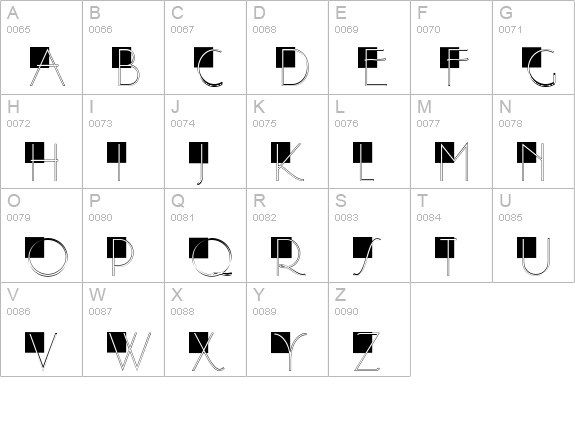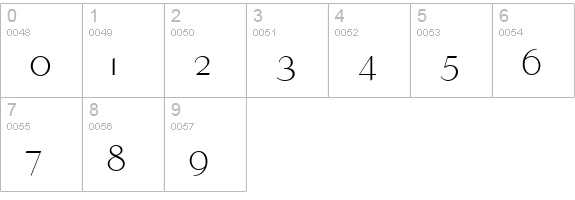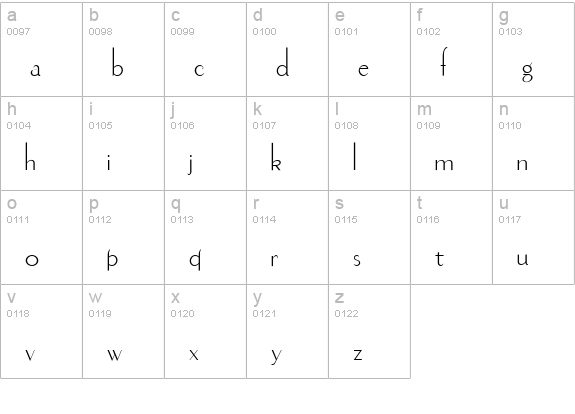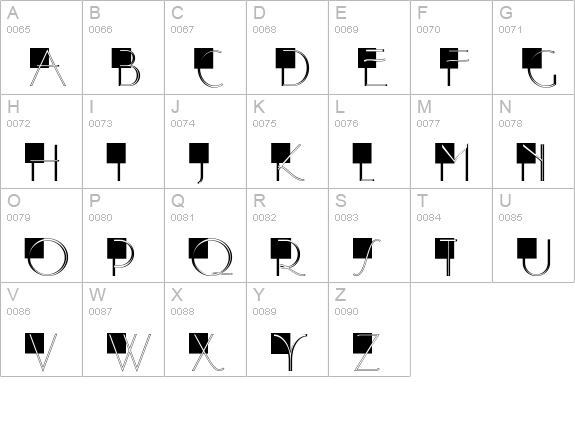
WashingtonSquareNF Font Details
WashingtonSquareNF is a striking and versatile font that exudes a timeless elegance. Its bold and well-defined letterforms command attention, making it perfect for headlines, logos, and signage. The clean lines and sharp angles give this font a modern edge while still maintaining a classic appeal. What sets WashingtonSquareNF apart is not only its exceptional design but also the fact that it is available for free. Yes, you read that right – this remarkable font can be downloaded for free at FontsMarket.com. This means that you can effortlessly enhance your creative projects without breaking the bank. Whether you're a graphic designer looking to add a touch of sophistication to your work, a business owner aiming to create a memorable brand identity, or a casual user wanting to jazz up your personal messages, WashingtonSquareNF is the ideal choice. Its wide range of characters and glyphs ensures that you'll find the perfect fit for any project. Don't miss out on this incredible opportunity to elevate your designs with WashingtonSquareNF. Download it for free at FontsMarket.com and let your creativity soar.